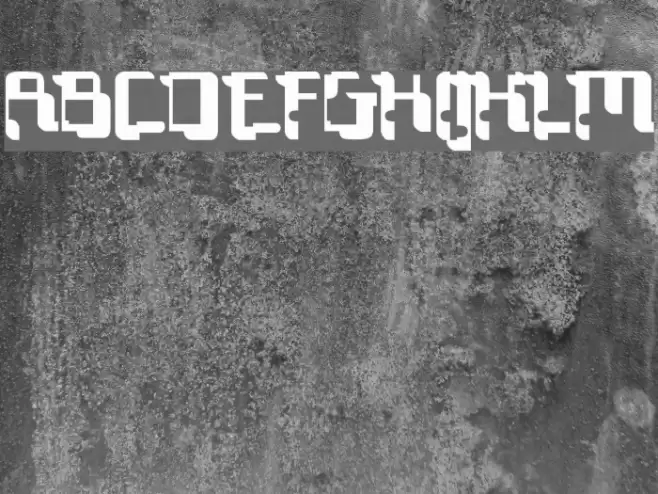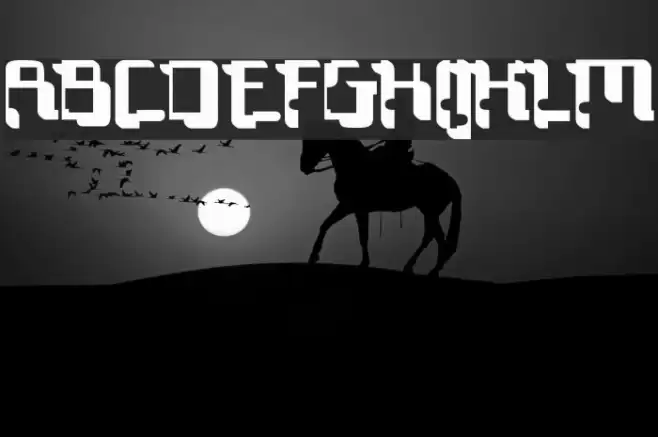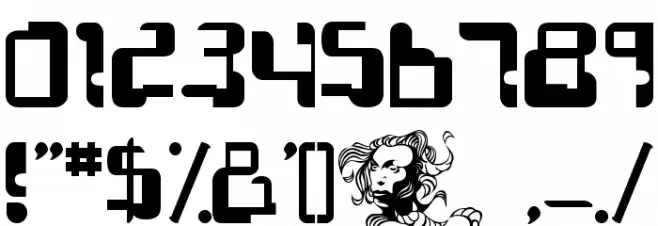
Technocrat Font
Technocrat Description
This font features a bold and futuristic design with a distinctly digital aesthetic. The characters are constructed with a blocky, geometric style that incorporates rounded corners and cut-out sections, giving it a unique, tech-inspired look. The uppercase and lowercase letters maintain a consistent width, contributing to a uniform appearance. Numbers and special characters follow the same design principles, ensuring cohesion across all elements. The font's boldness and distinctive style make it stand out, ideal for projects that require a modern and innovative touch.
A bold, futuristic font with a digital, geometric design from Uncategorized fonts.
- Proposed Projects: Ideal for technology branding, video game titles, sci-fi posters, and digital media.